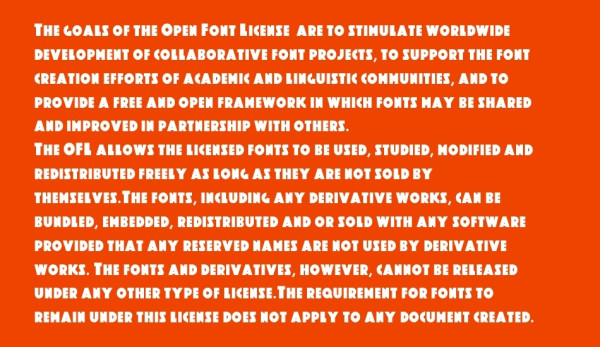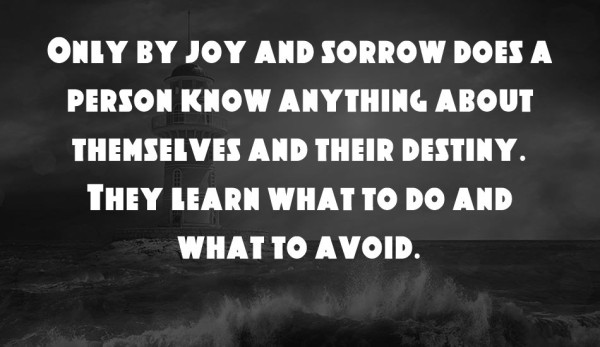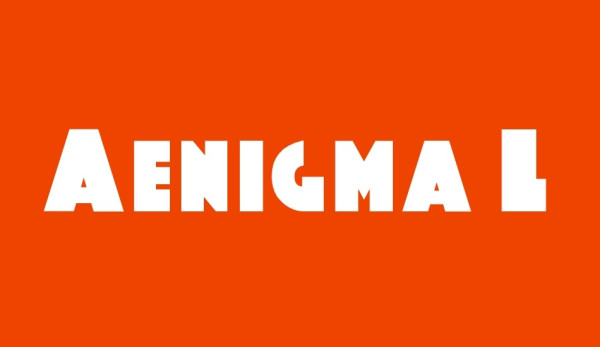
Aenigma LDR Font, is a display font with a block font theme that has a bold shape. Comic vaganza is made inspired from comics or cartoons so that the shape of the comic vaganza is made with a comic/cartoon themed touch.
Of course, this font is perfect if you are a fan of comics or cartoons for your design projects.
Aenigma LDR Font
Aenigma LDR